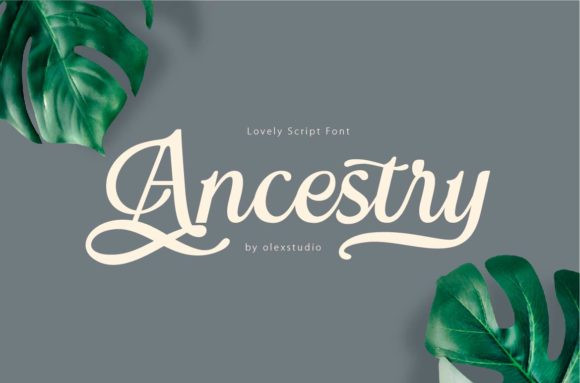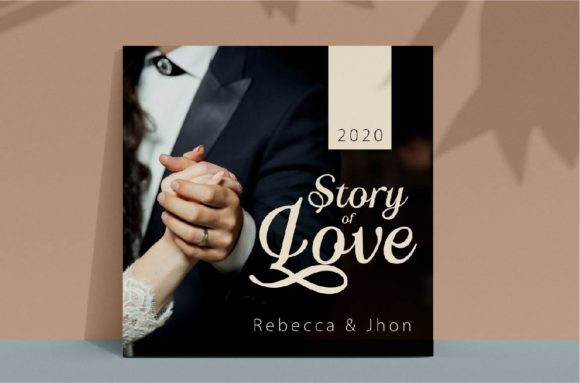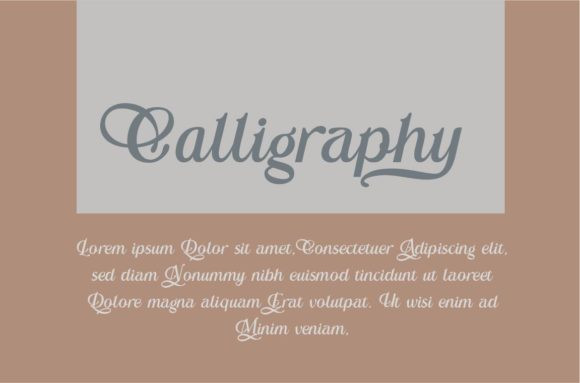
Ancestry Font
Ancestry is a bold handwritten font, carefully handcrafted to become a true favorite. Its casual charm makes it appear wonderfully down-to-earth, readable and, ultimately, incredibly versatile. Ancestry will look outstanding in any context, whether it’s being used on busy backgrounds or as a standalone headline!